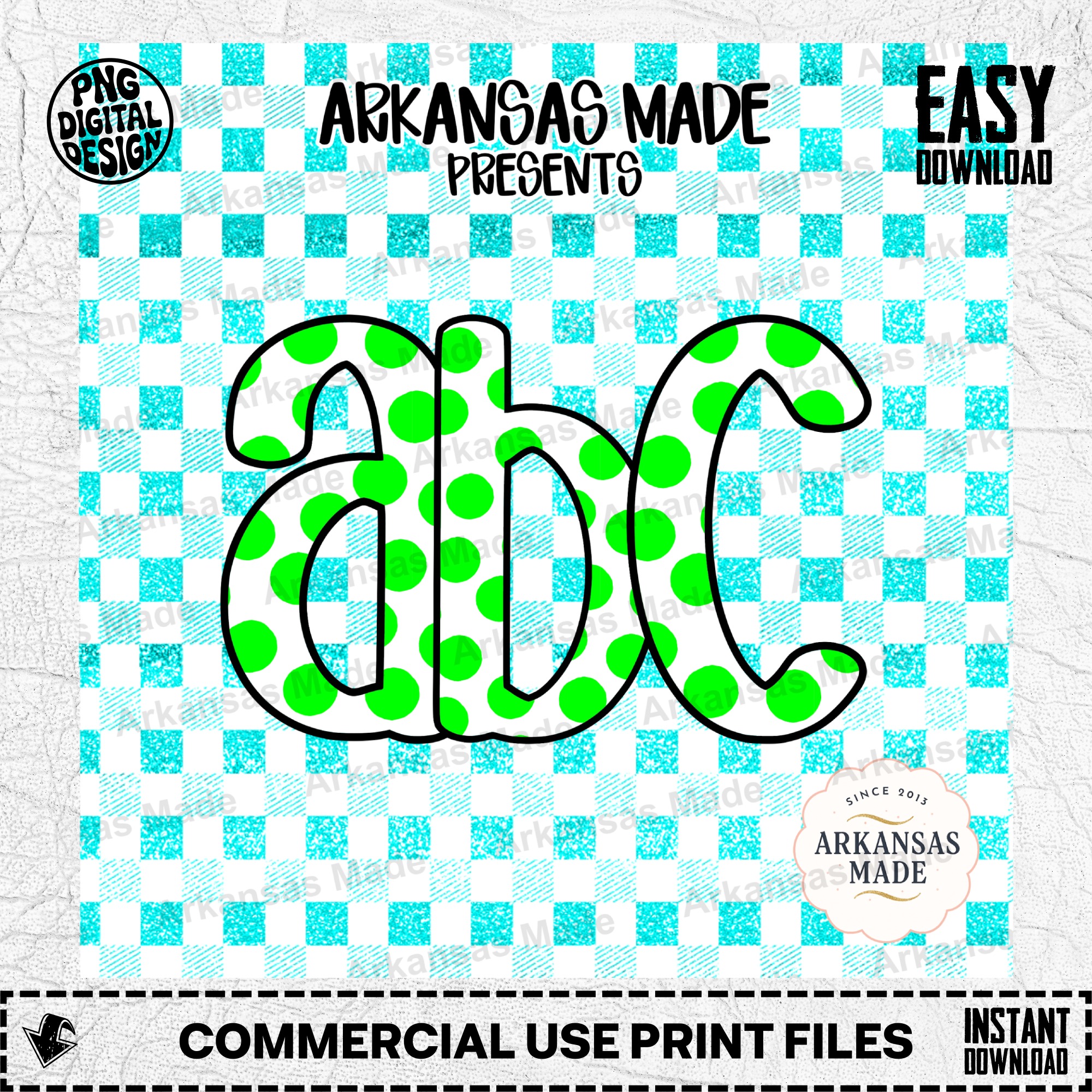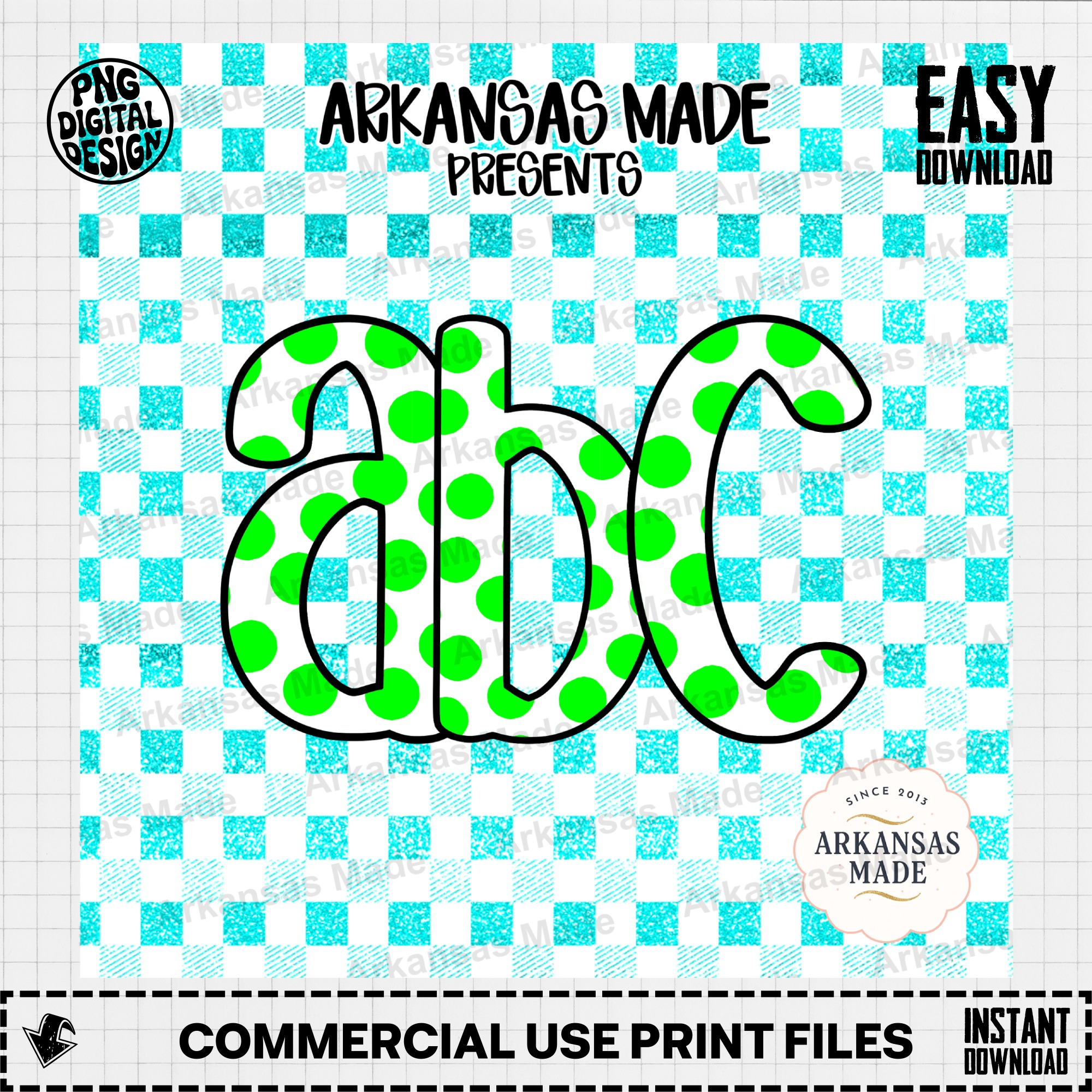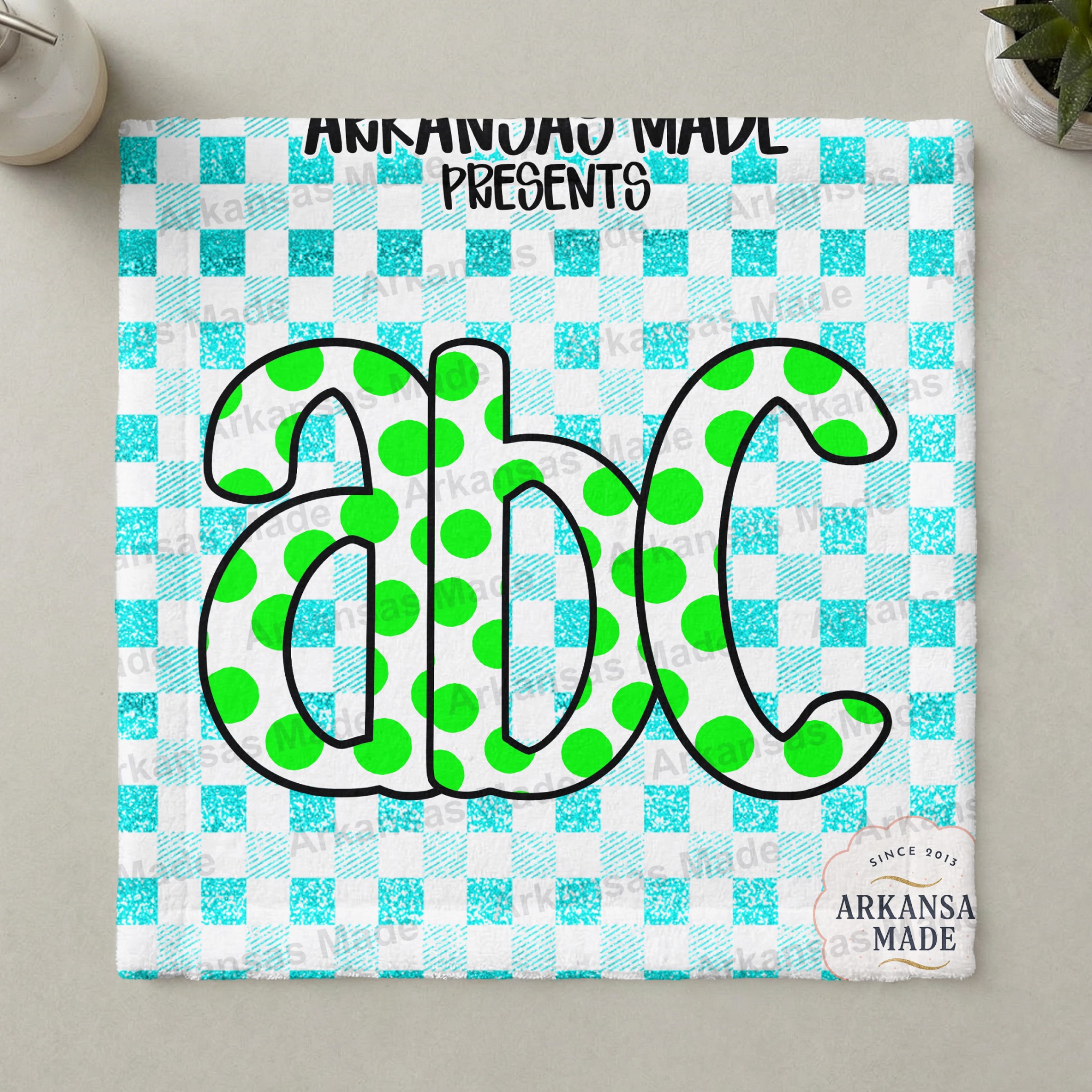
Green Polka Dot Alpha Set Digital Download | Preppy Gingham Checkerboard Letters PNG Bundle | Vibrant Summer Alphabet Font for DIY Crafts
Get this vibrant Green Polka Dot Alpha Set Digital Download, perfect for adding a preppy and fun touch to all your DIY projects and crafts! Featuring bright green polka dots set against a cheerful teal faux glitter checkerboard background, this alphabet bundle brings a playful aesthetic to any creation. Ideal for crafters, teachers, and small business owners looking to design unique party decor, apparel, invitations, or personalized printables.